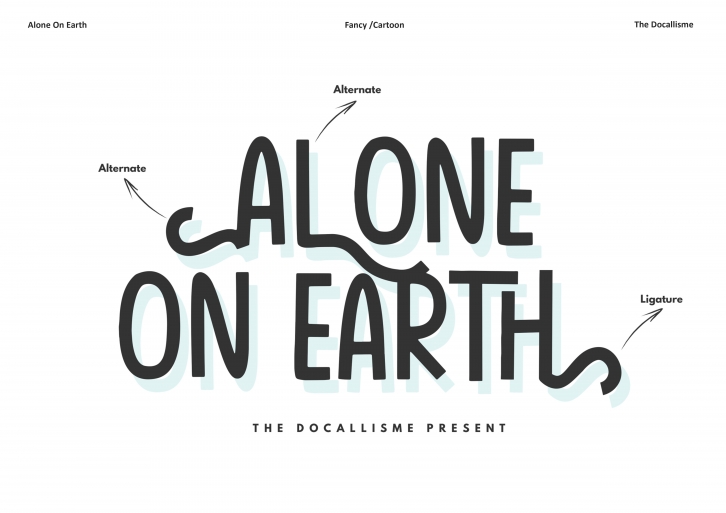
Alone on Earth is a cool, fun and relaxed styled display font. Whether you’re looking for fonts for Instagram or calligraphy scripts for DIY projects, this font will turn any creative idea into a true piece of art!